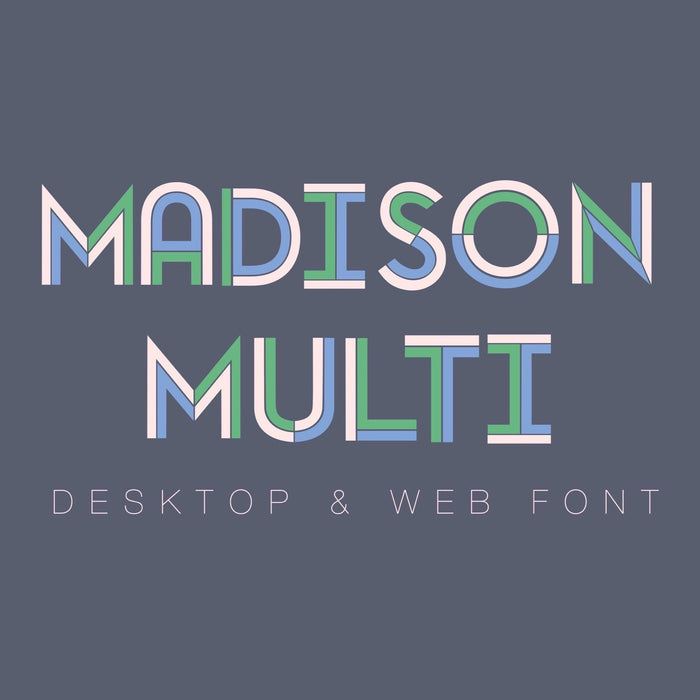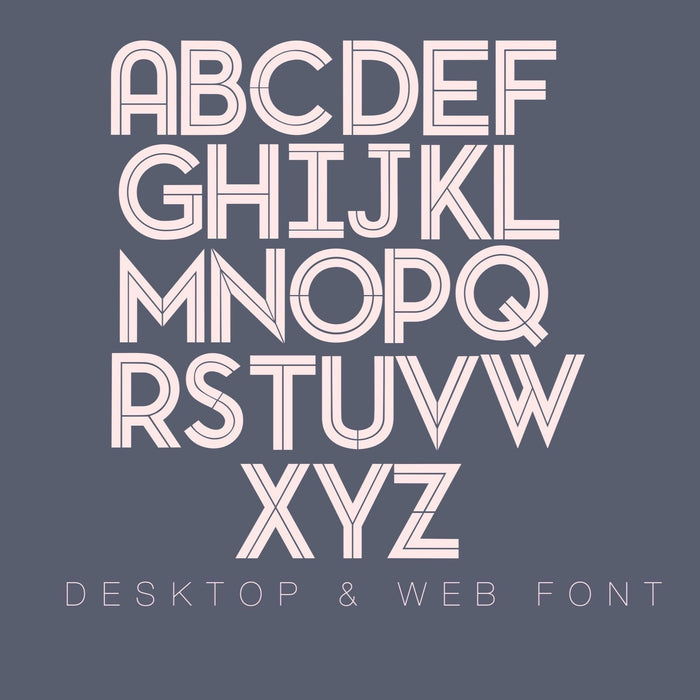
Madison Monogram DESKTOP & WEB FONT
The Madison desktop & web Monogram Typeface font includes letters A-Z in uppercase characters. There are 3 colors to be layered for the Multi Color option and a single color option as well. To create a multi-colored look as shown in the first image, the fonts will need to be layered accordingly.